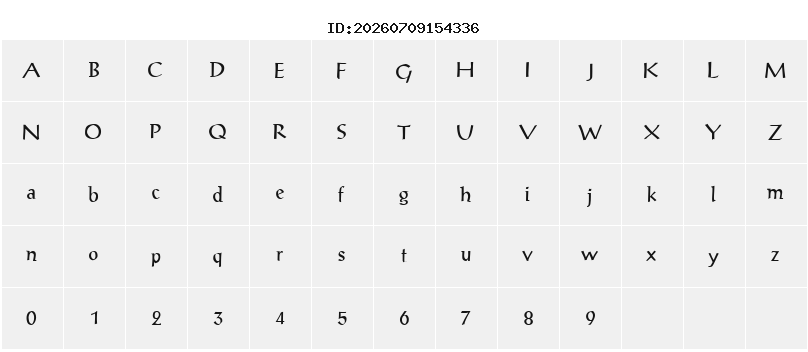
• Font Name: DS-DeCho
• Full Font Name: DS-DeCho
About DS-DeCho.ttf
DS-DeCho.ttf is a modern, elegant sans-serif font designed for ultimate readability and visual harmony. Perfect for branding, headlines, web design, and print materials.